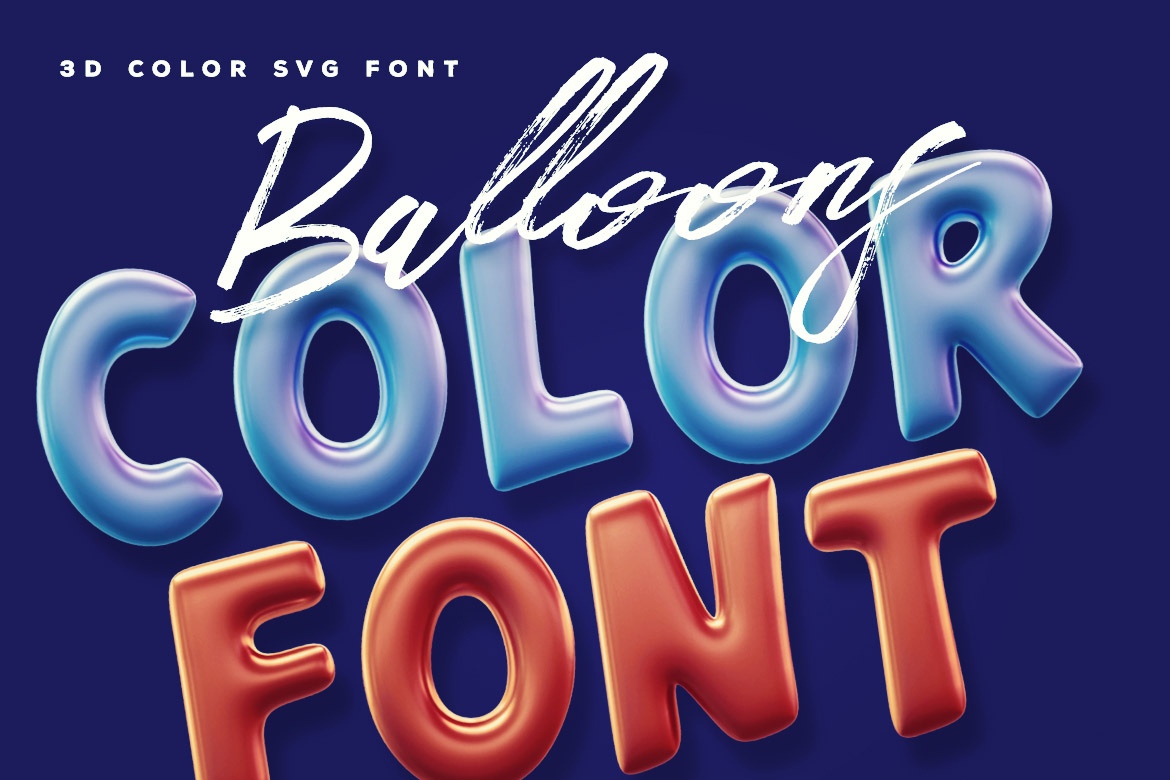
Balloons Color Font
Balloons Color Font is perfect for children's party planning, birthday celebration marketing, festive event branding, toy store signage, carnival entertainment graphics, family fun center advertising, cheerful daycare communications, and joyful celebration campaigns.
What makes Balloons Color Font exciting is its jubilant celebration that captures the pure joy and colorful excitement of festive gatherings and childhood wonder. The font features playful letterforms with buoyant curves and festive character variations that evoke floating balloons, birthday parties, and the infectious happiness of celebratory moments. Its distinctive cheerful styling and celebratory appeal communicate joy, fun, and festive spirit, making every message feel lifted by celebration and touched by the magical lightness of pure happiness and colorful festivities.
The Balloons Color Font family includes regular weight with uppercase and lowercase letters, numerals, punctuation marks, and special characters. Premium versions often feature colorful alternates and celebratory elements that enhance the festive, joyful aesthetic perfect for party and entertainment applications.
The joyful character of Balloons Color Font makes it particularly valuable for party planning services, children's entertainment venues, and celebration supply companies. Its excellent visibility ensures party information and celebratory messaging capture attention while maintaining the distinctive festive aesthetic that appeals to families seeking fun celebration experiences and joyful entertainment.
Celebration industry marketers appreciate how Balloons Color Font effortlessly conveys festive authenticity and joyful energy. The font's buoyant proportions and celebratory details create uplifting brand materials that establish connections with audiences who value family celebration, festive joy, and the colorful happiness of special occasion gatherings.
The versatile celebration of this typeface extends to children's products, family entertainment centers, and festive gift companies where celebratory authenticity enhances family appeal and joyful positioning. Balloons Color Font Free Download provides creative professionals with an essential tool for developing memorable, joy-driven designs that resonate with audiences who embrace festive celebration, family fun, and the colorful lightness of balloon-filled happiness in their special occasions and family entertainment experiences.